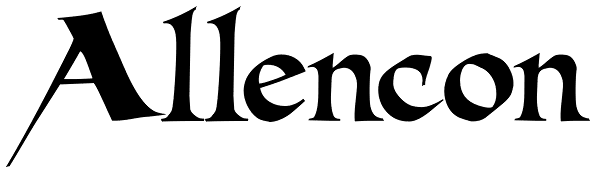
Allencon
Allencon is a lovely font based on freehand calligraphy. It has a bold, decisive look, with various aspects of the characters regularized to give a consistent appearance in print while preserving the personality of the lettering. It includes variant...